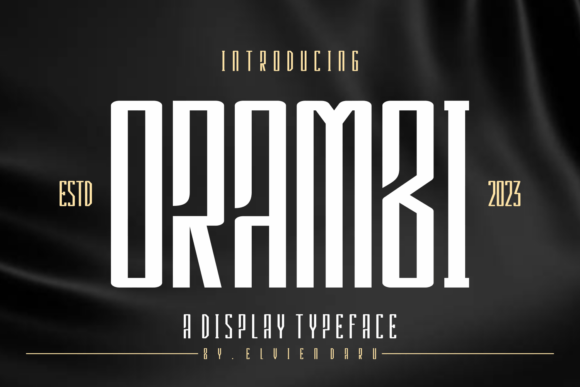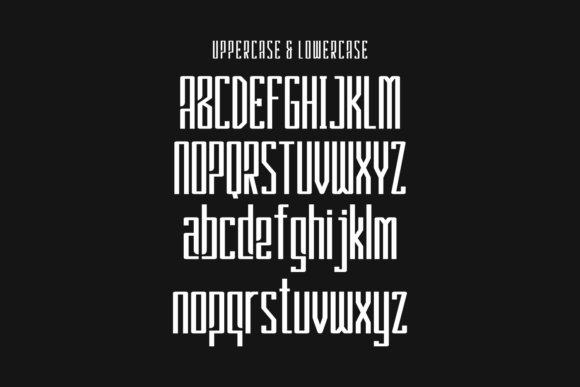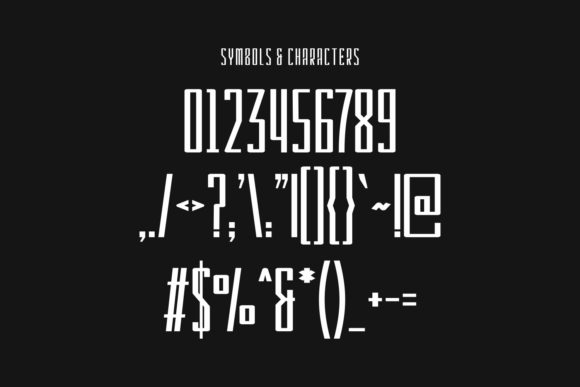
Introduction to Orambi Font
Orambi is an incredibly unique display font.
Masterfully designed to become a true favorite, this font has the potential to bring each of your creative ideas to the highest level .
Key Features of Orambi Font
Why Choose Orambi Font?
Orambi Font offers exceptional quality and versatility, making it a valuable addition to your design toolkit. Whether you’re creating for personal projects or commercial use, Orambi Font delivers professional results.